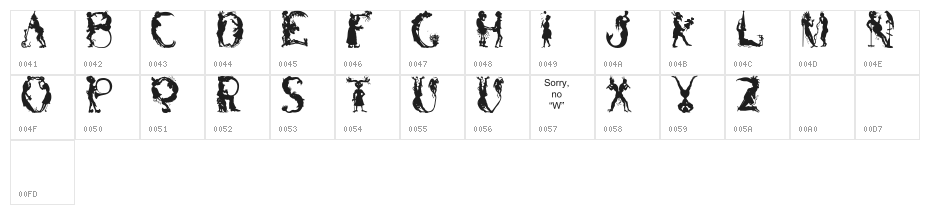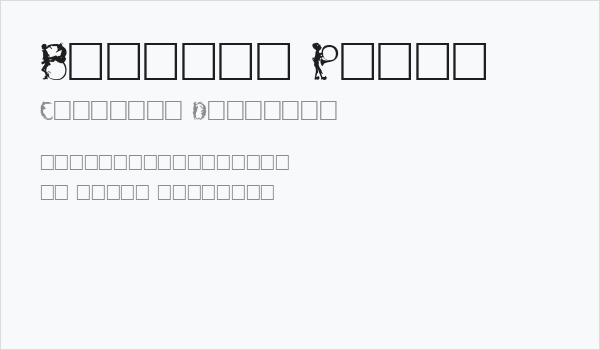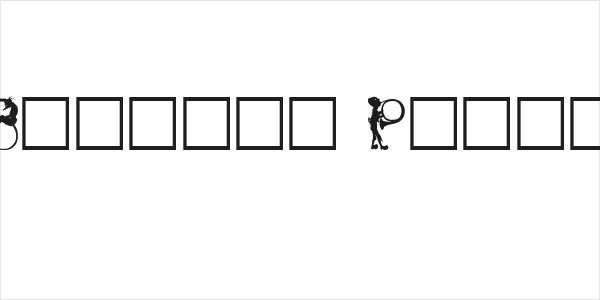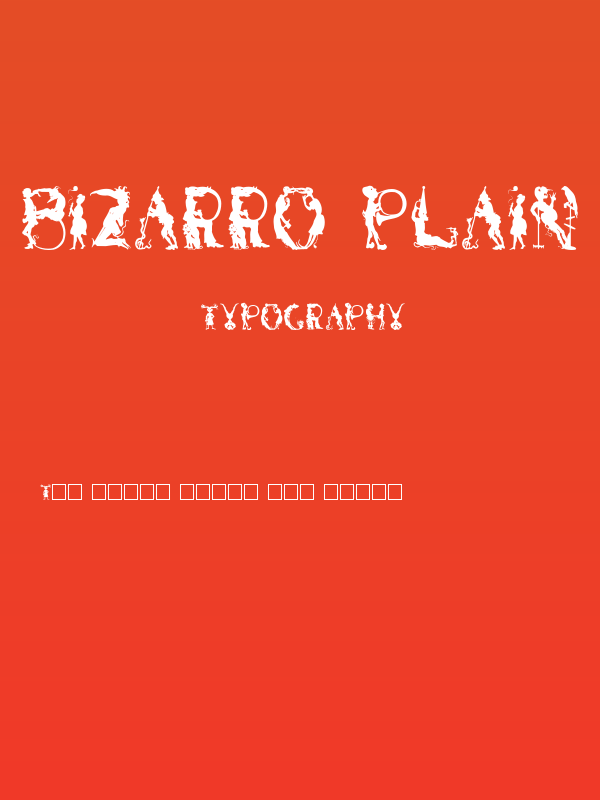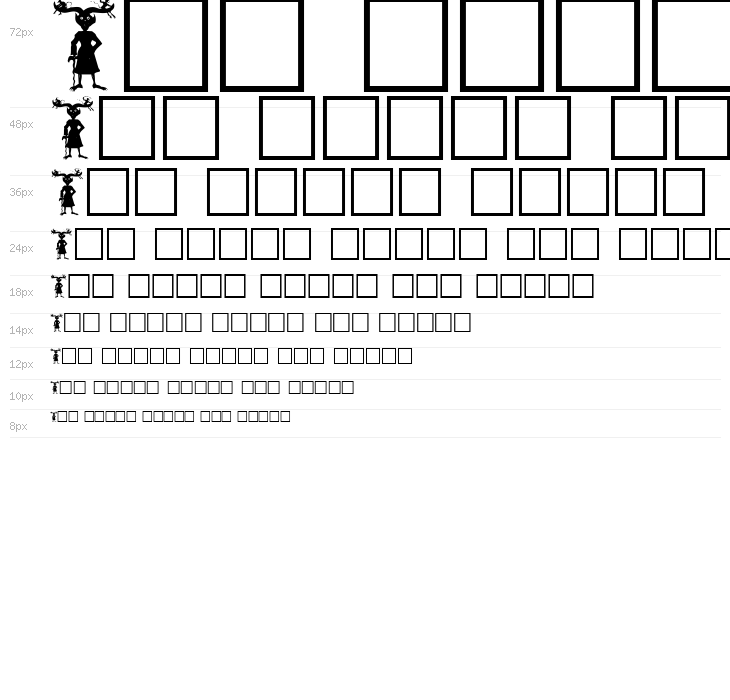
Bizarro Plain Font
Bizarro Plain Description
This font features a highly decorative and artistic style, with each letter incorporating intricate, whimsical elements that resemble organic or fantastical shapes. The uppercase letters are bold and elaborate, with a playful and imaginative design that makes each character unique. The absence of lowercase letters and numbers suggests a focus on display purposes rather than body text. The font's distinctiveness and creativity make it ideal for projects that require a strong visual impact, such as posters, book covers, or themed event invitations. The lack of a 'W' indicates a limitation in the character set.
| Proposed Projects | Ideal for posters, book covers, themed event invitations, and other creative projects requiring a strong visual impact. |